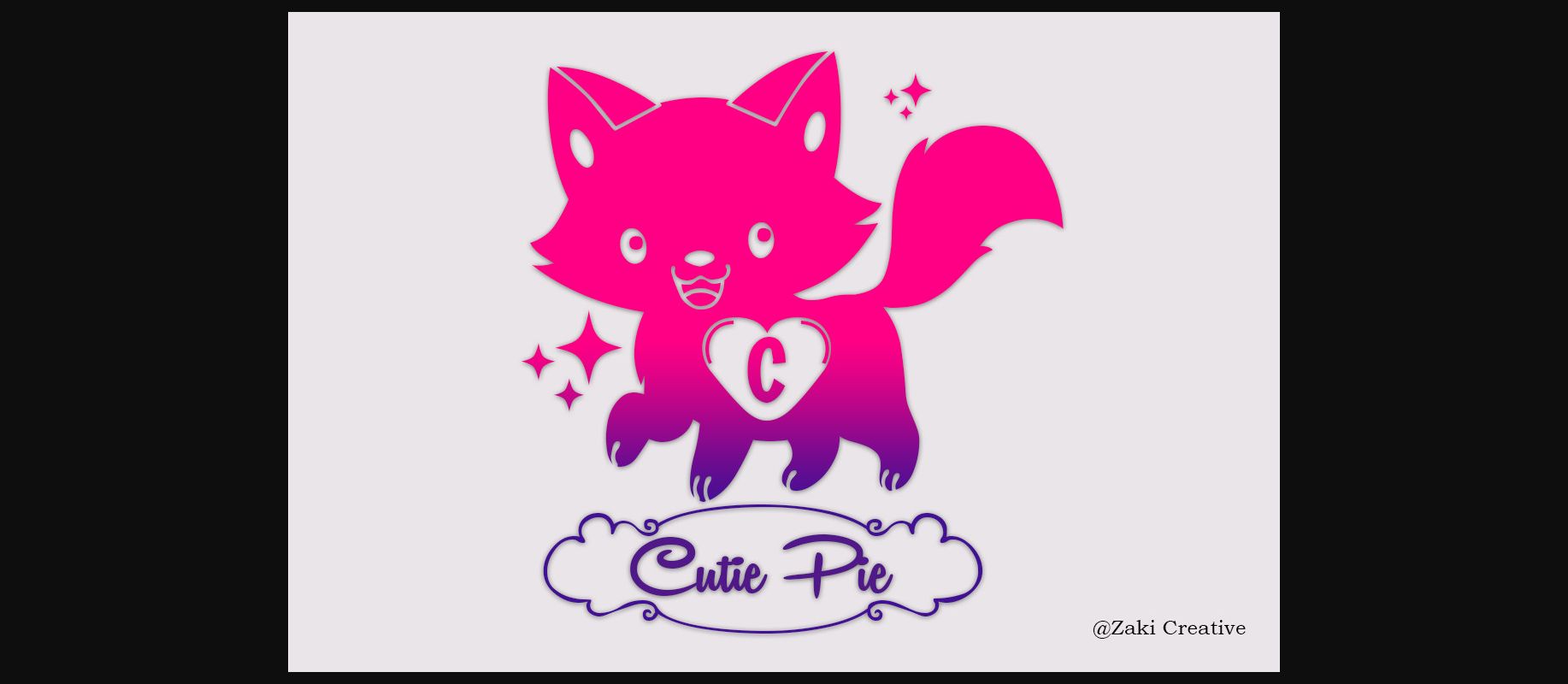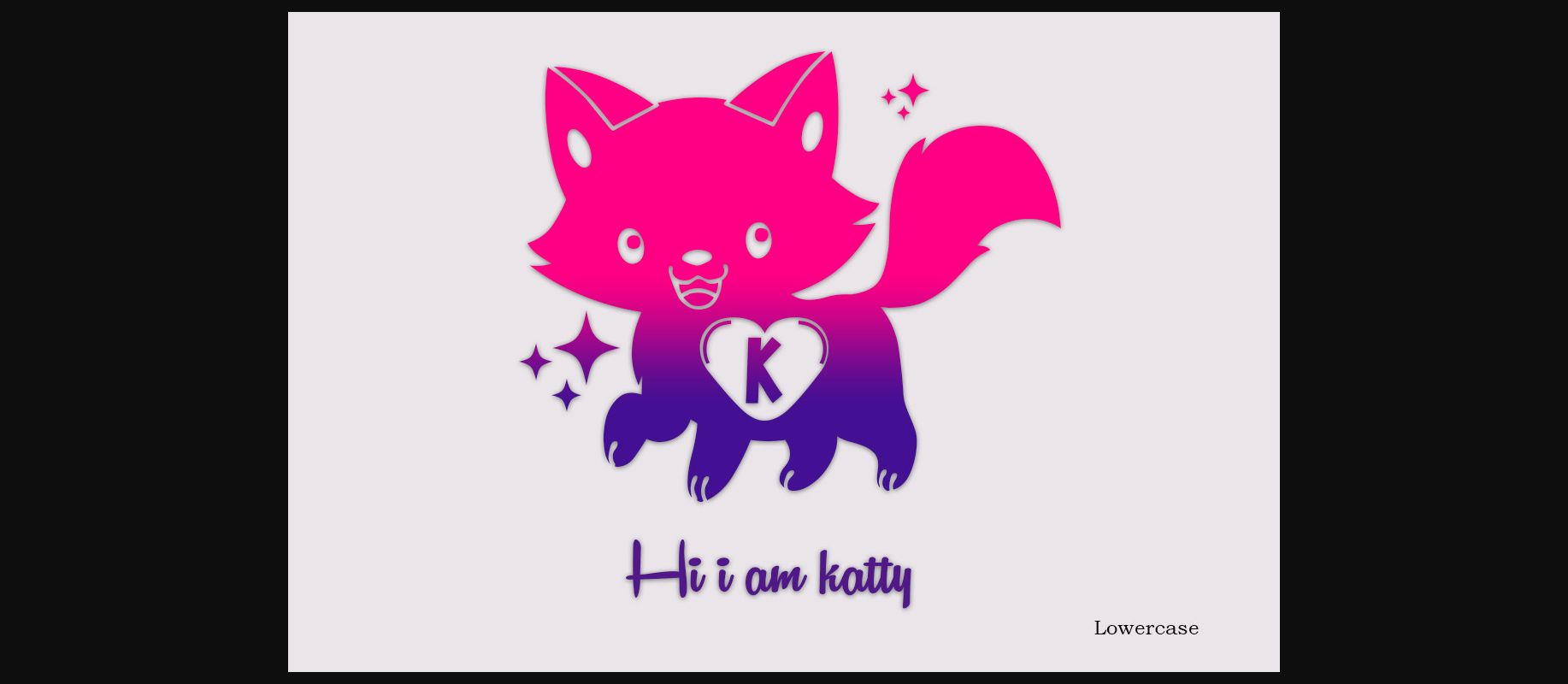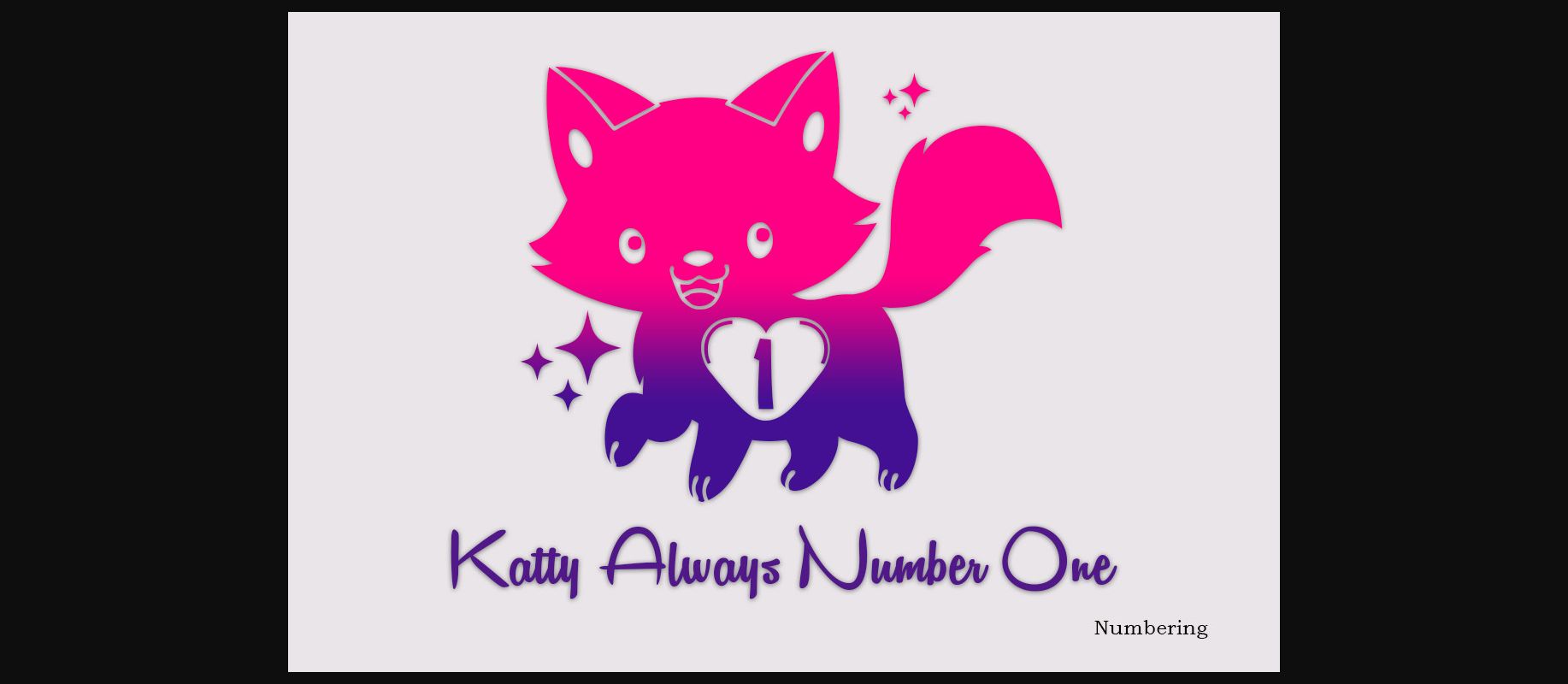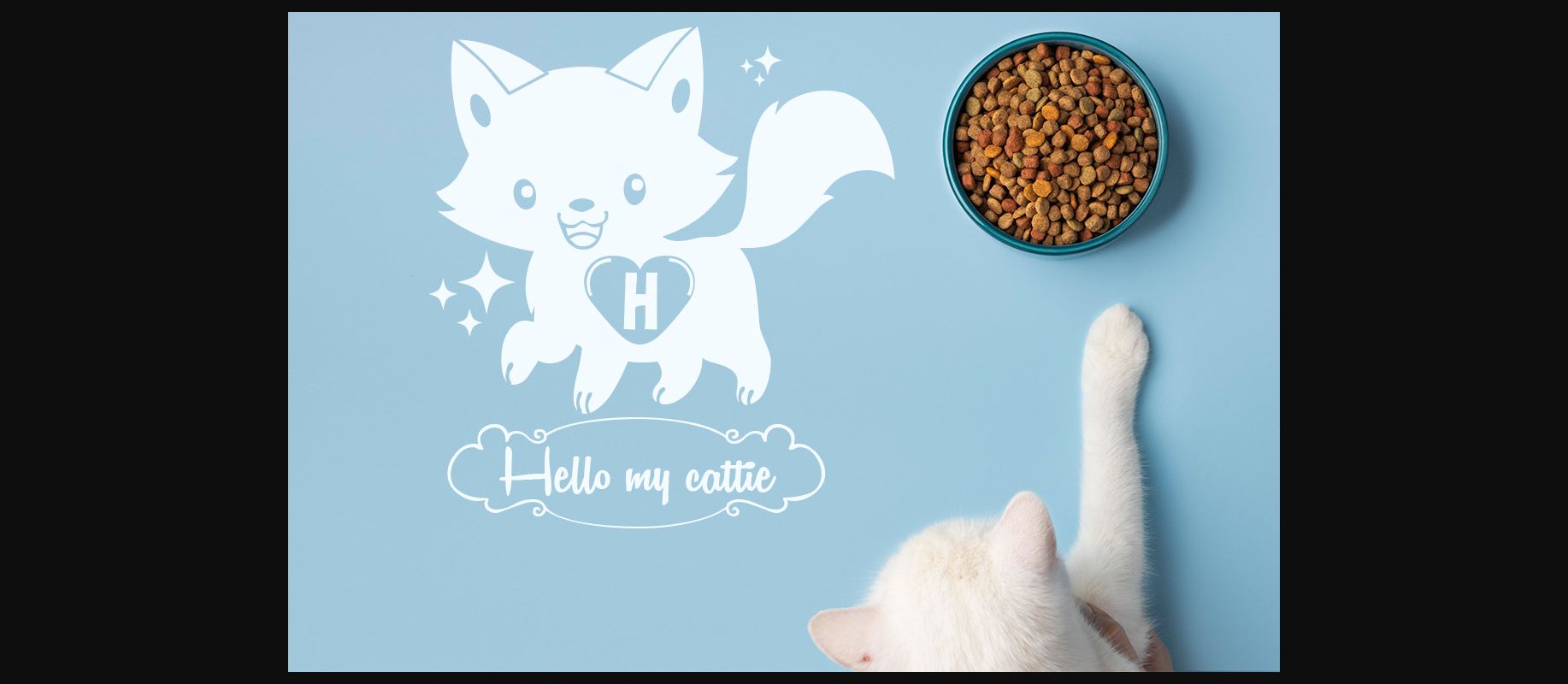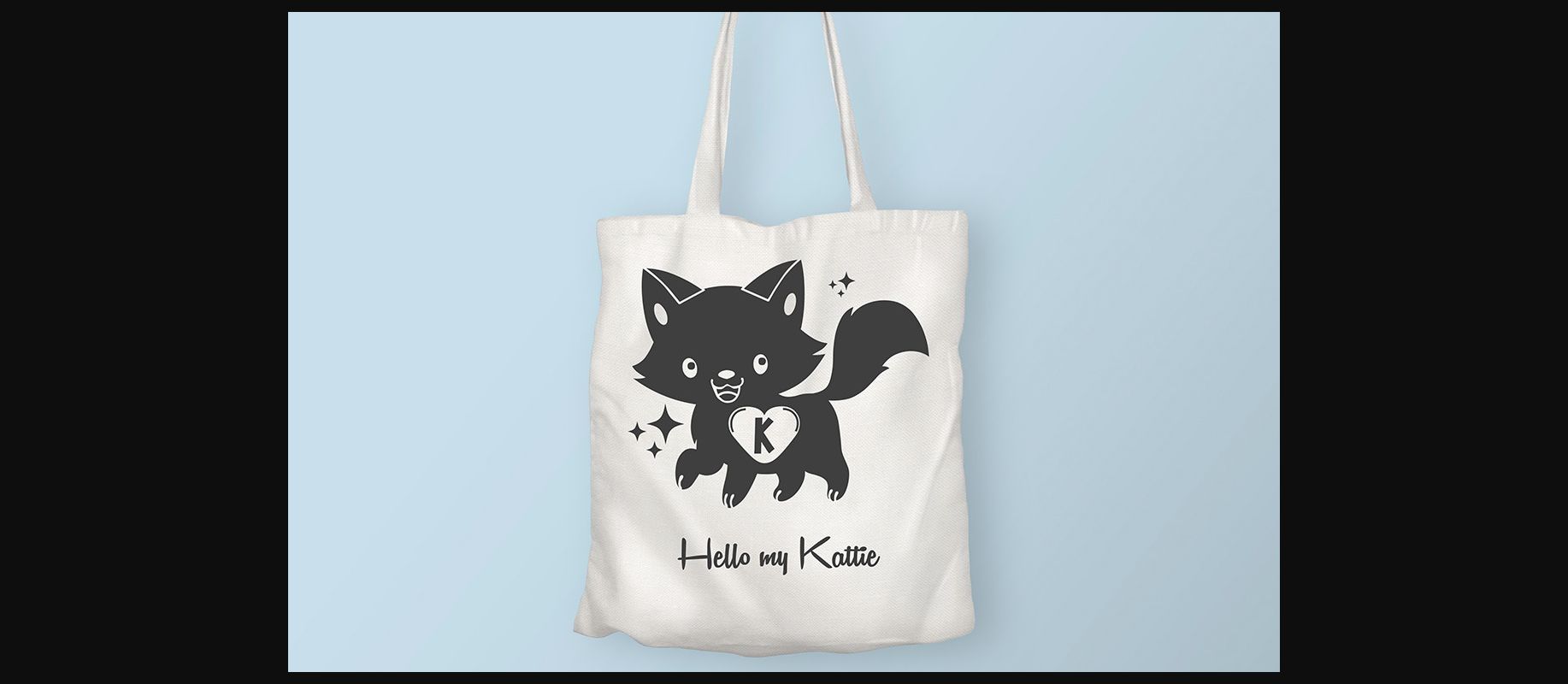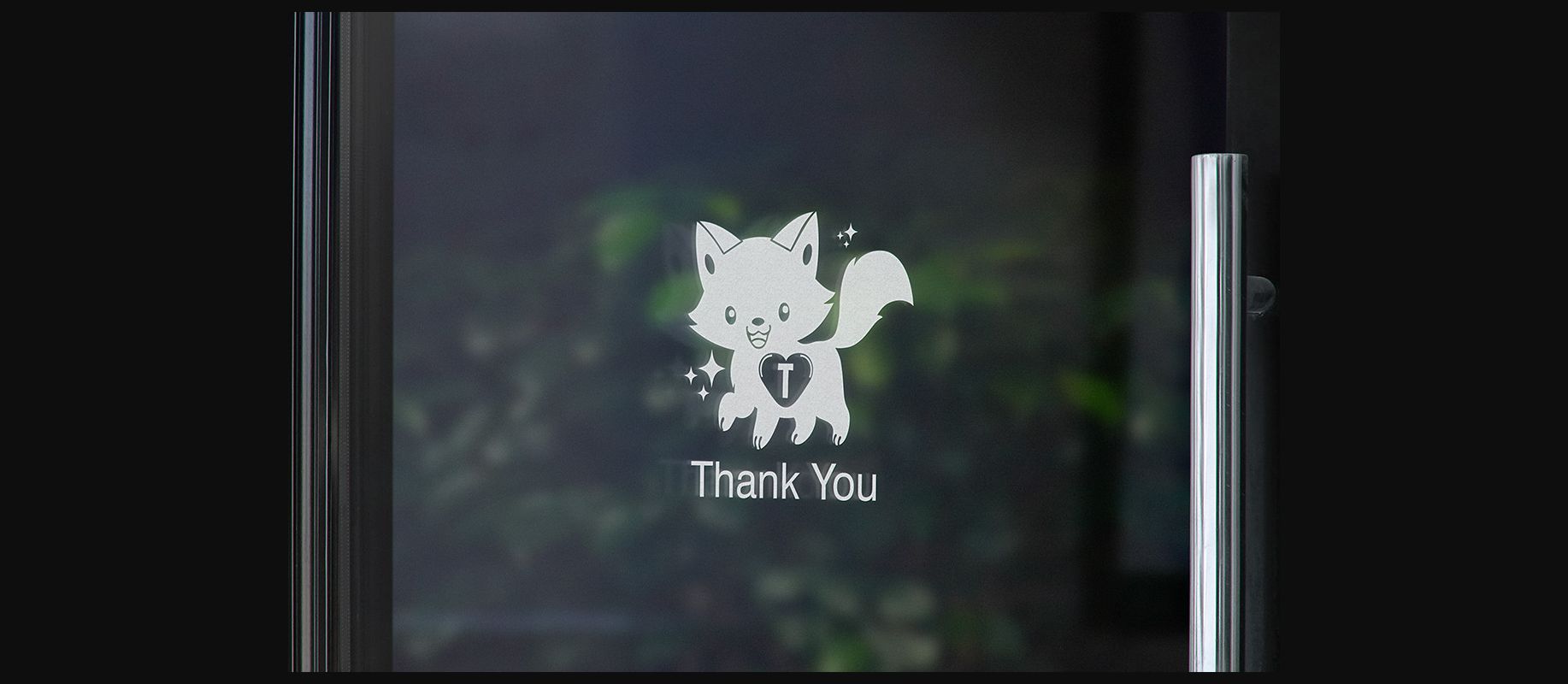
Cutie Pie Monogram Font
About Cutie Pie Monogram Font
Cutie Pie Monogram is a cute decorative font, featuring lovely ornaments. Fall in love with its authentic feel and use it to create gorgeous wedding invitations, beautiful stationary art, eye-catching social media posts, and cute greeting cards. Cutie Pie is a monogram made with feelings.